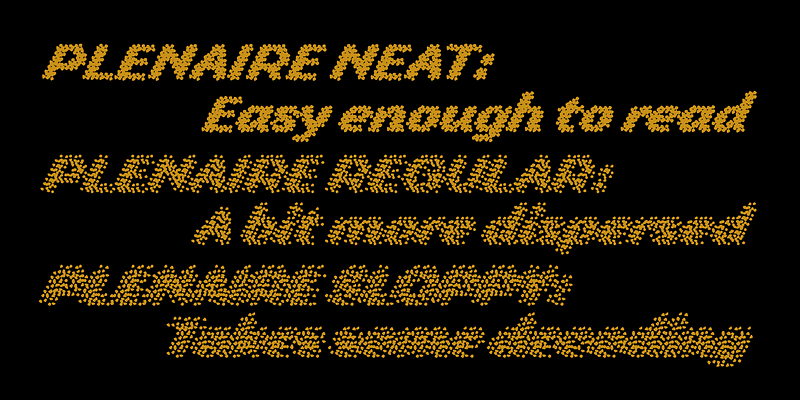
If you can’t read it, take a few steps back! A marvel of optical effects, Plenaire imagines what the Impressionist painters of the late-nineteenth century might produce as type designers in the twenty-first. Up close its ‘daubs’ appear chaotic and illegible, but at a distance its shapes resolve into elegant and readable italic letters, like the wondrous brushstrokes of Claude Monet or Georges Seurat.